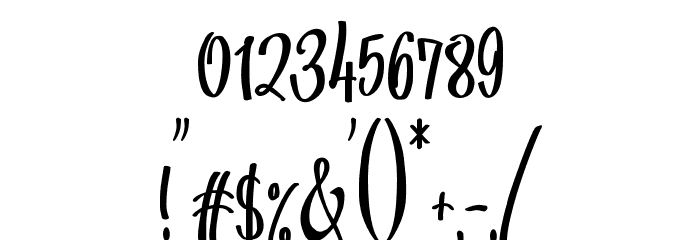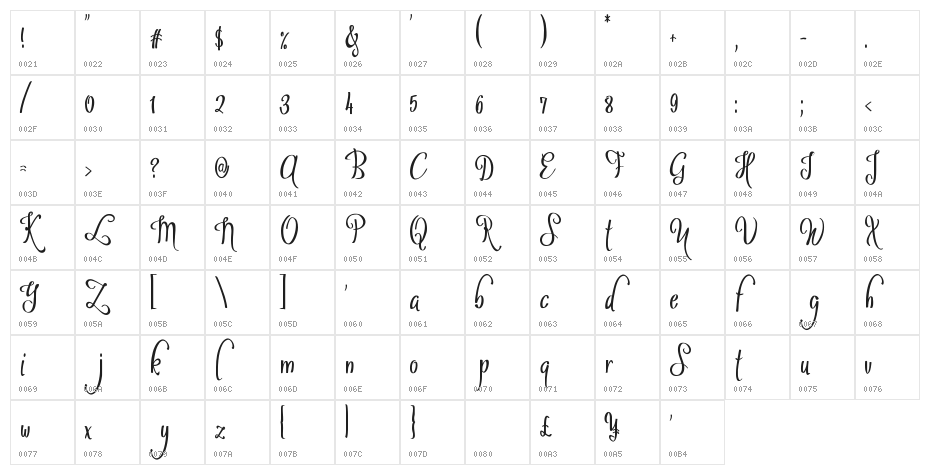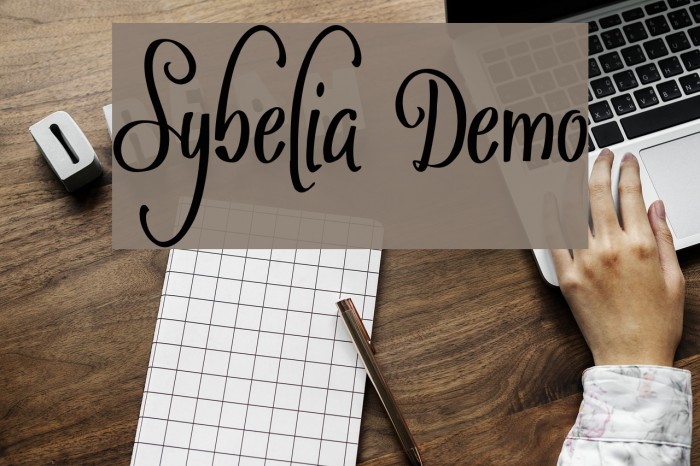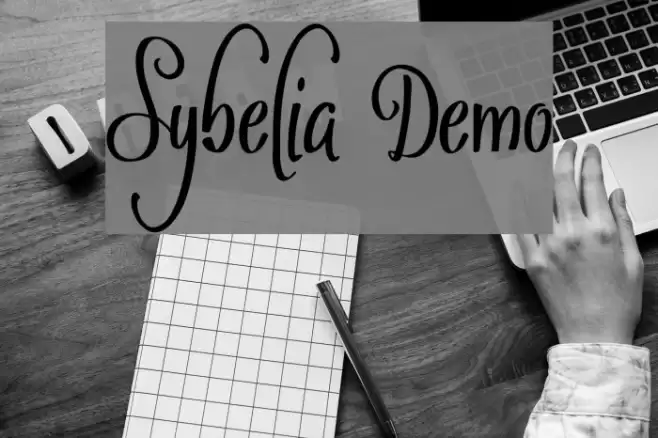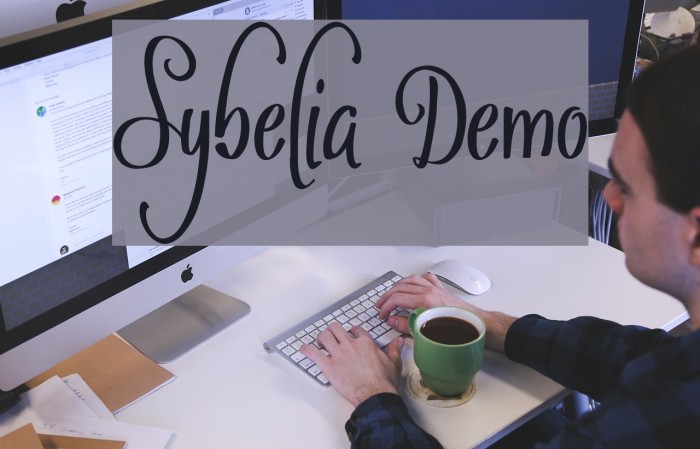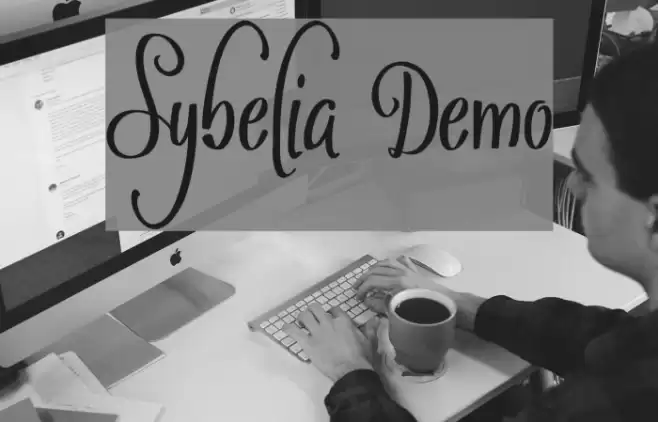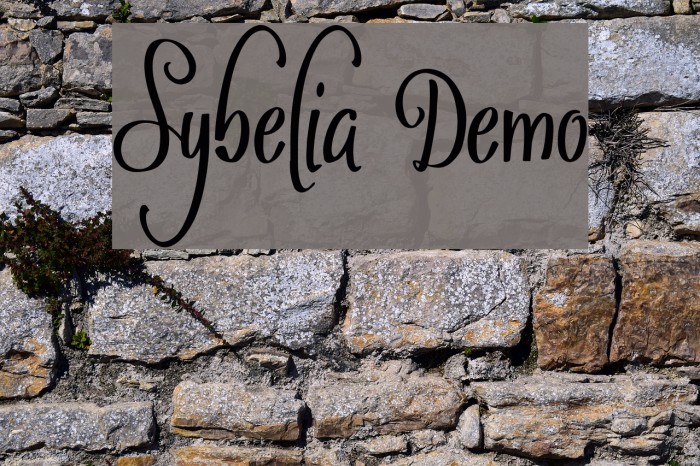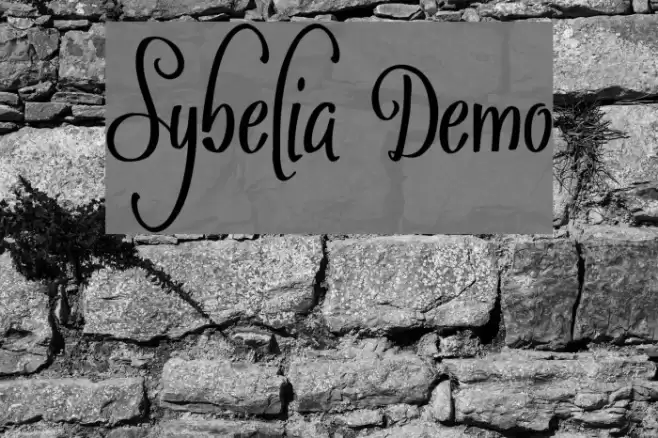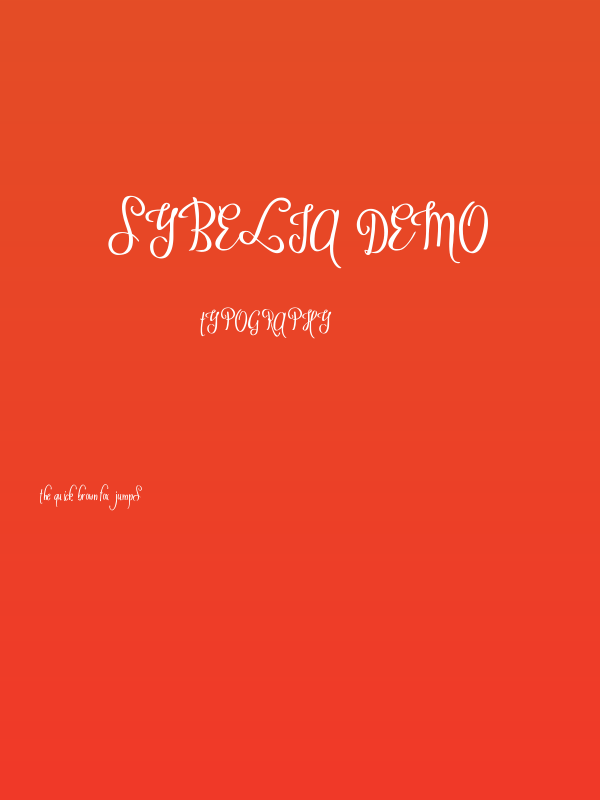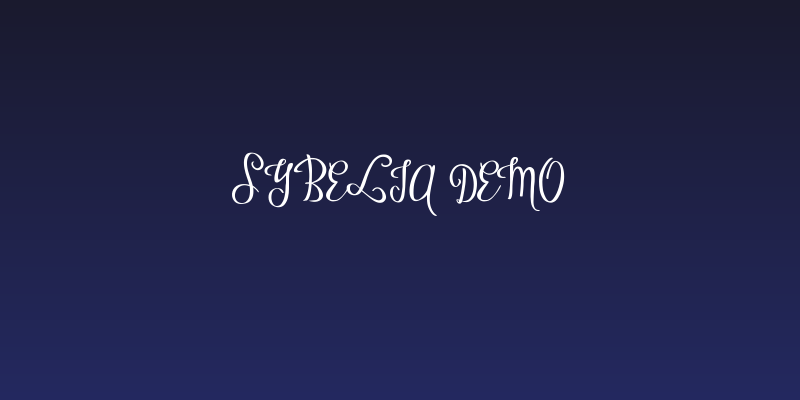
Sybelia Demo Font
Sybelia Demo Description
This font features an elegant and flowing script style with a decorative flair. The uppercase letters are characterized by their sweeping curves and intricate loops, giving them a sophisticated and artistic appearance. The lowercase letters maintain a similar style, with some characters featuring unique swashes that add to the overall decorative nature. The numerals are consistent with the script style, offering a cohesive look across all characters. Special characters are also designed with the same attention to detail, ensuring they blend seamlessly with the rest of the font. This font is perfect for projects that require a touch of elegance and creativity.
| Proposed Projects | Ideal for wedding invitations, greeting cards, branding, and decorative signage. |